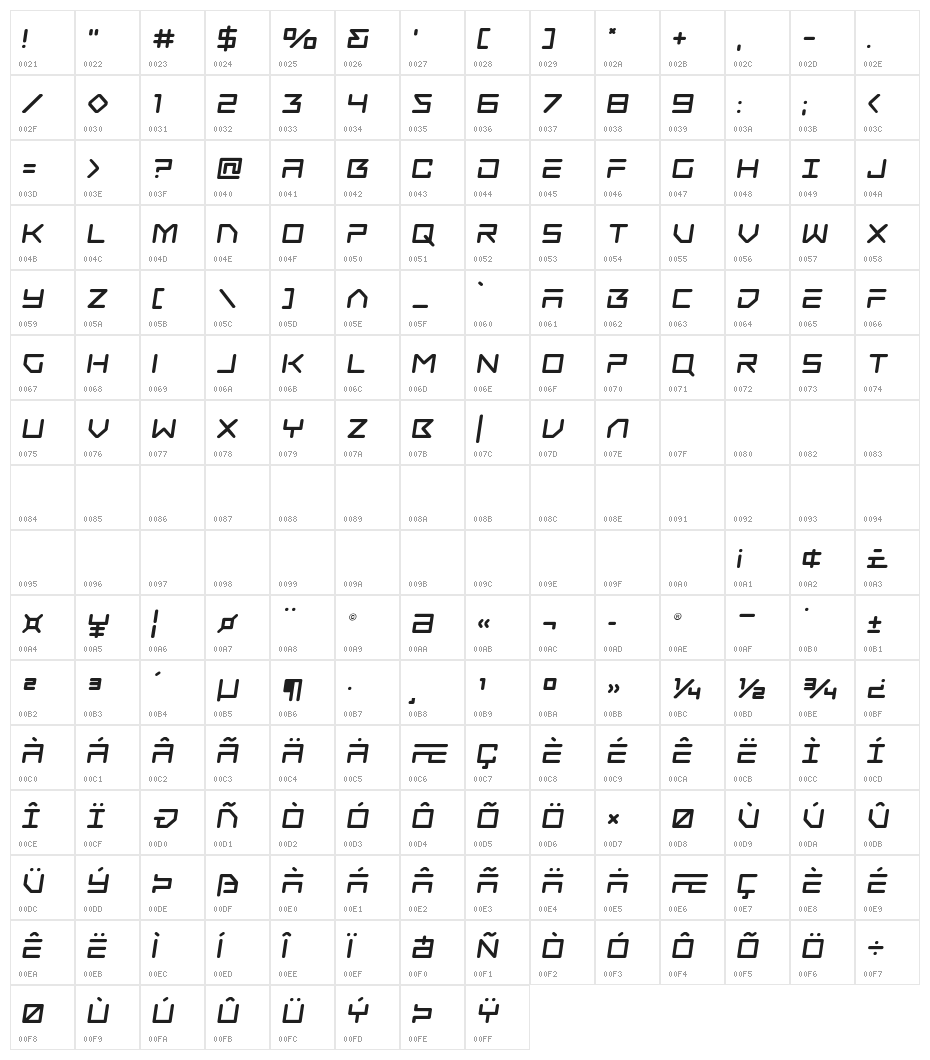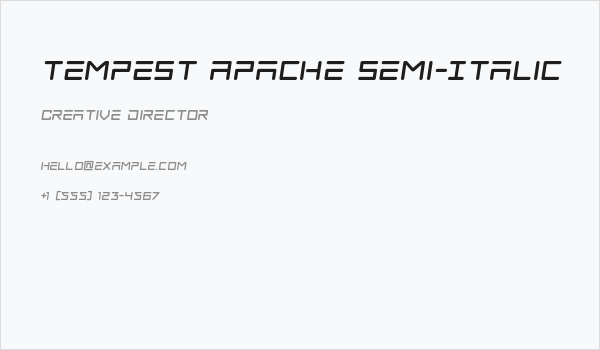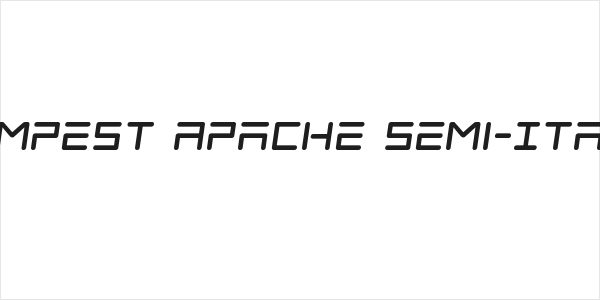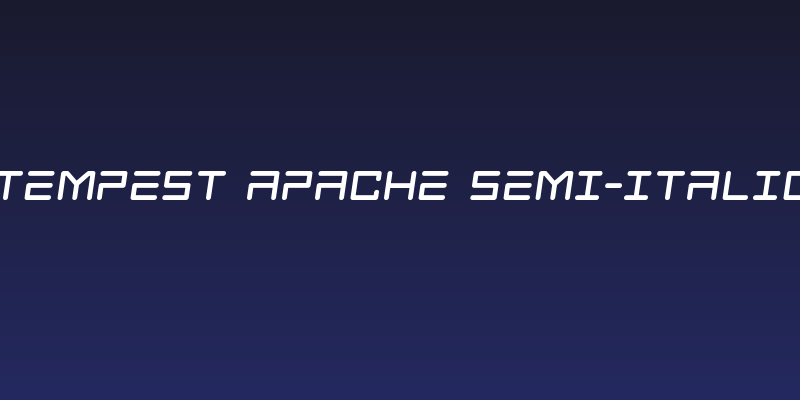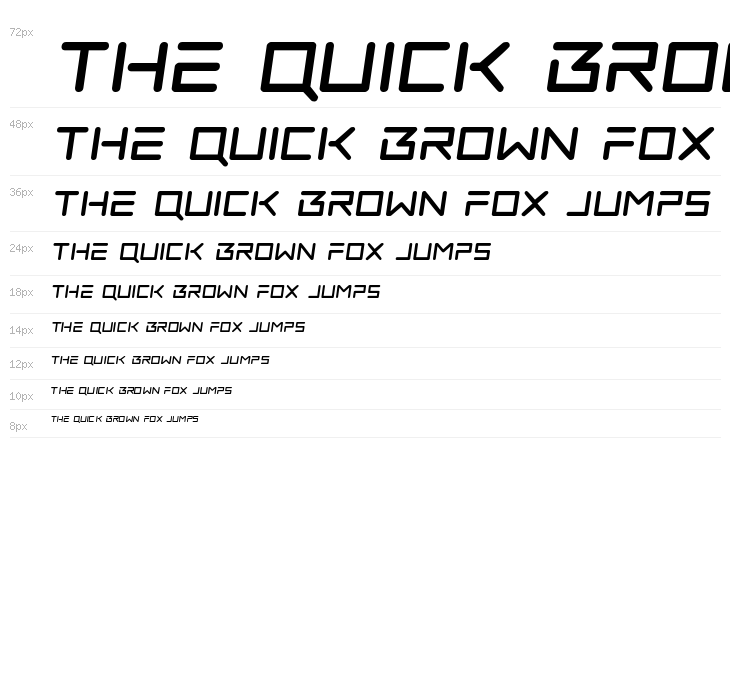
Tempest Apache Semi-Italic Font
Tempest Apache Semi-Italic Description
This font exhibits a modern and futuristic style with a semi-italic slant, giving it a dynamic and forward-moving appearance. The characters are geometric and angular, with a consistent stroke width that maintains a clean and uniform look. The uppercase and lowercase letters share similar design traits, enhancing the cohesive feel of the typeface. The numerals and special characters are designed to match the overall aesthetic, ensuring versatility across various applications. The font's structure is bold and assertive, making it suitable for attention-grabbing headlines and impactful designs.
| Overall Style | Futuristic and dynamic |
| Proposed Projects | Ideal for technology branding, futuristic posters, video game titles, and sci-fi themed designs. |